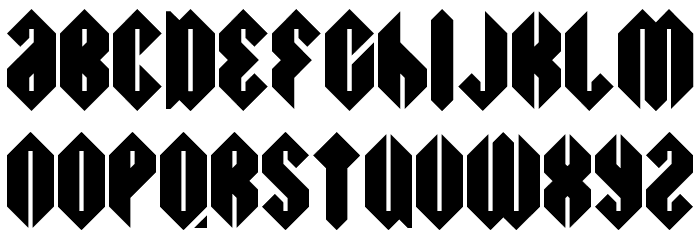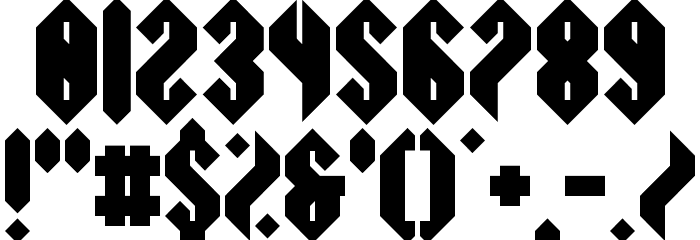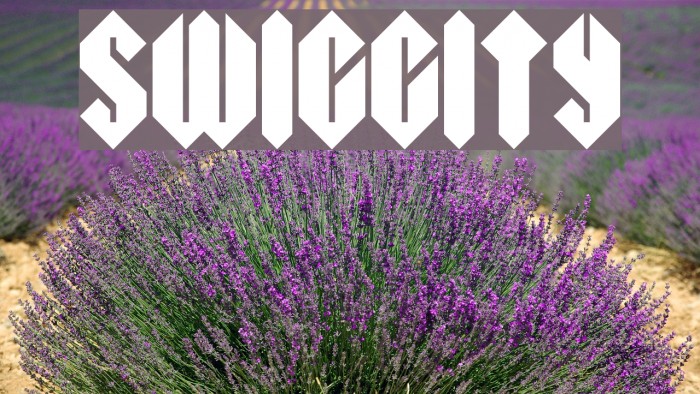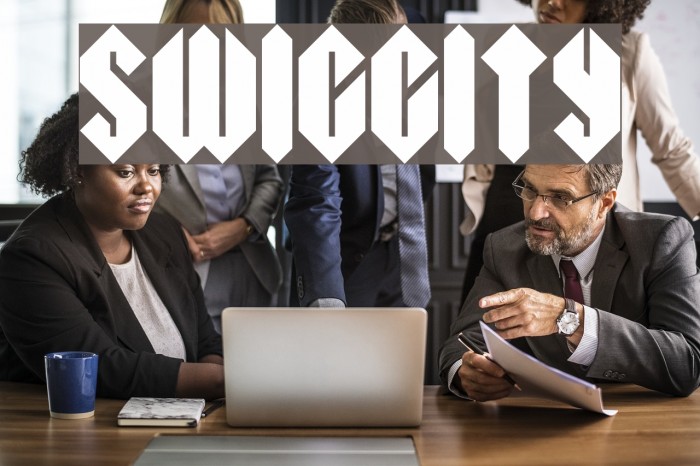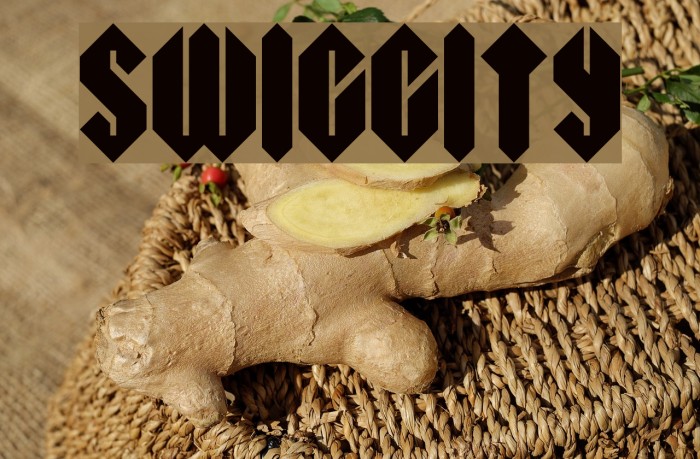
Swiggity Font
This font features a bold, geometric design with sharp angles and a strong presence. The characters are constructed with thick strokes and a high level of contrast, creating a striking and impactful appearance. The style is reminiscent of Gothic or Blackletter fonts, with a modern twist that emphasizes angularity and symmetry. Each letter is distinct, with unique cuts and edges that give the font a dynamic and edgy feel. The numbers and special characters follow the same design principles, ensuring consistency throughout the typeface.
A bold, geometric font with sharp angles and high contrast, reminiscent of Gothic styles.
- Proposed Projects: Ideal for use in branding, posters, album covers, and any project requiring a bold, eye-catching typeface.